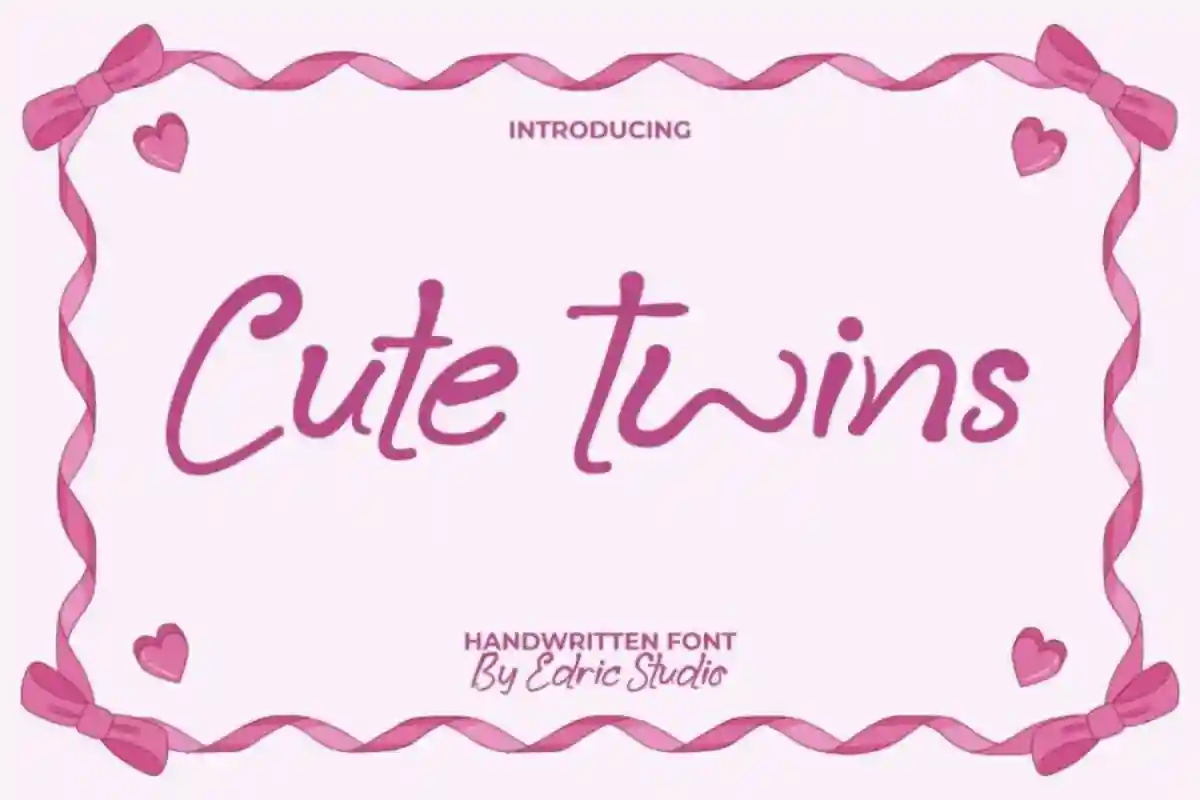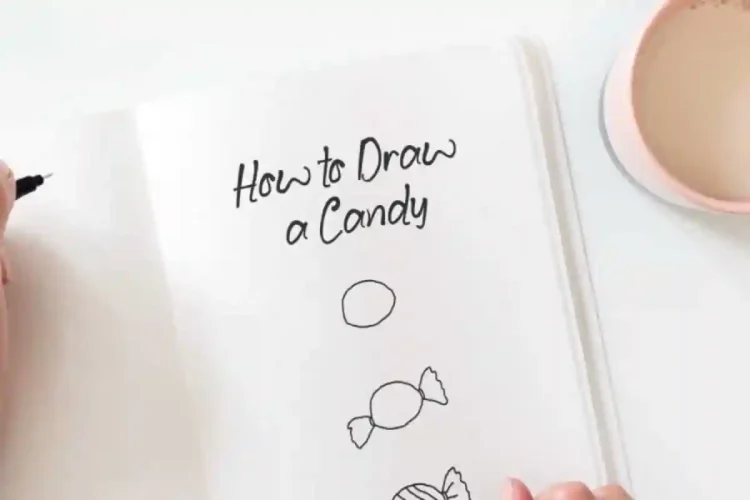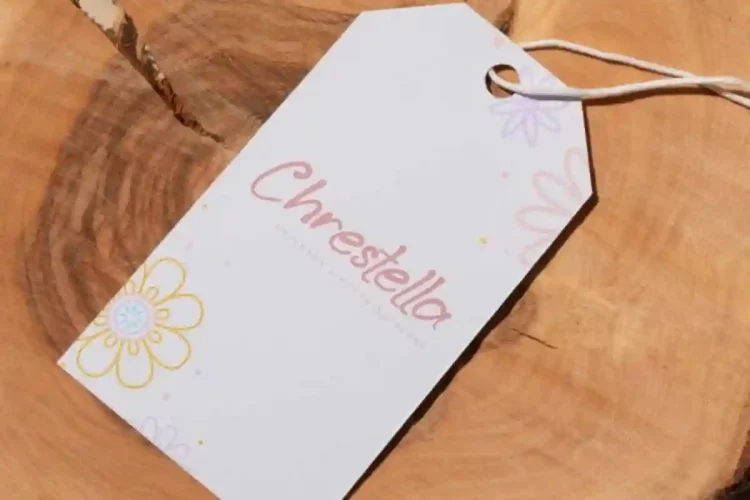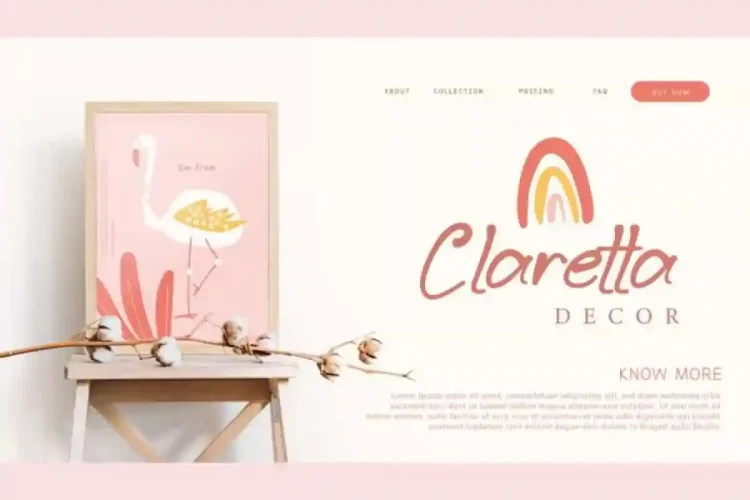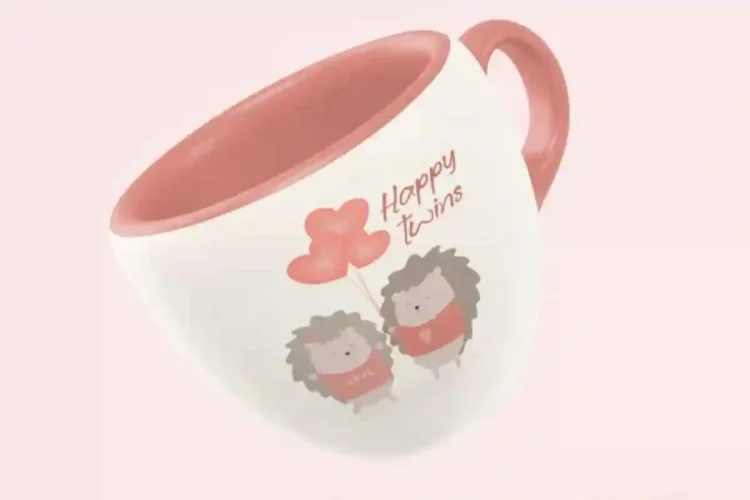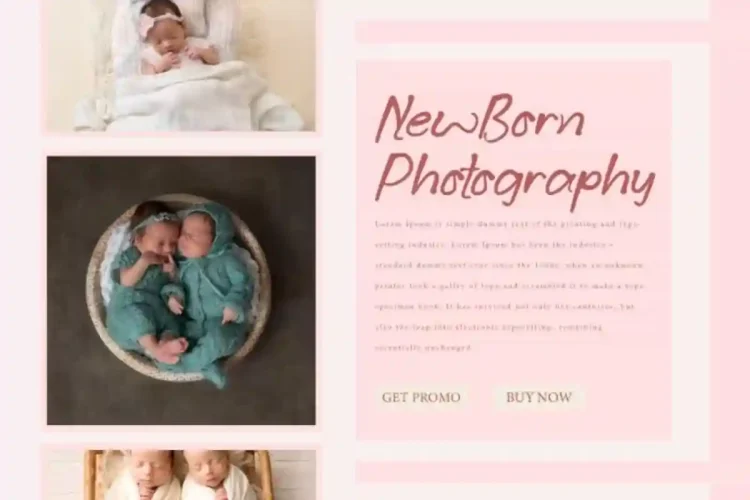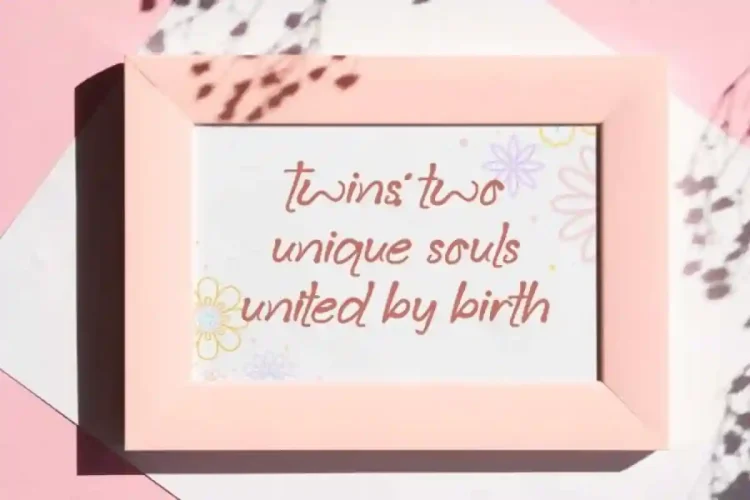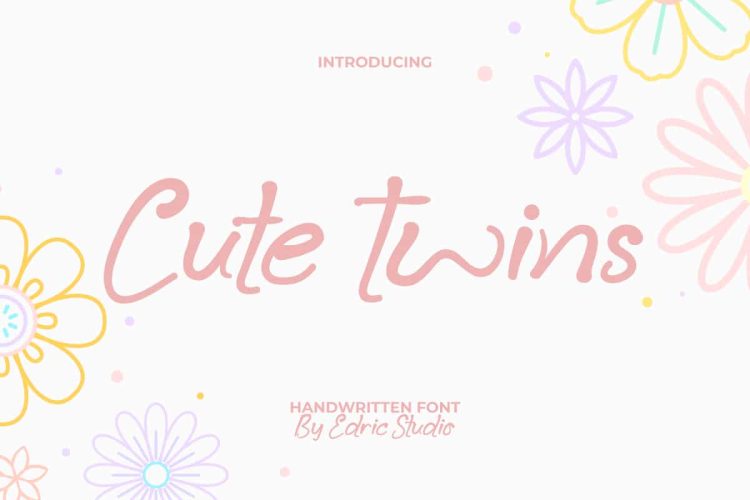
Cute Twins Handwritting Font
Cute Twins Handwritting Font is a stylish kids pen handwriting font. This handwritten font has a cute yet charming and easy to read. stylish kids pen handwriting font created to bring warmth and charm into every design.
Cute Twins Handwritting Font with smooth strokes and a joyful personality, Cute Twins Font works beautifully for branding, brochures, flyers, invitations, greeting cards, packaging, posters, signage, stationery, stickers, website titles, and much more. It has a full set of Basic Uppercase and Lowercase Characters, Numbers, Punctuation and Symbols.
Cute Twins Font is a playful typeface with unique decoration in each character. It’s tested to work well in the Adobe Apps (Illustrator, Adobe InDesign, Adobe Photoshop) even work on Microsoft Word. All of these characters are available through the glyph panel, moreover each letter has its own unicode (PUA) so you can access all the characters easily.